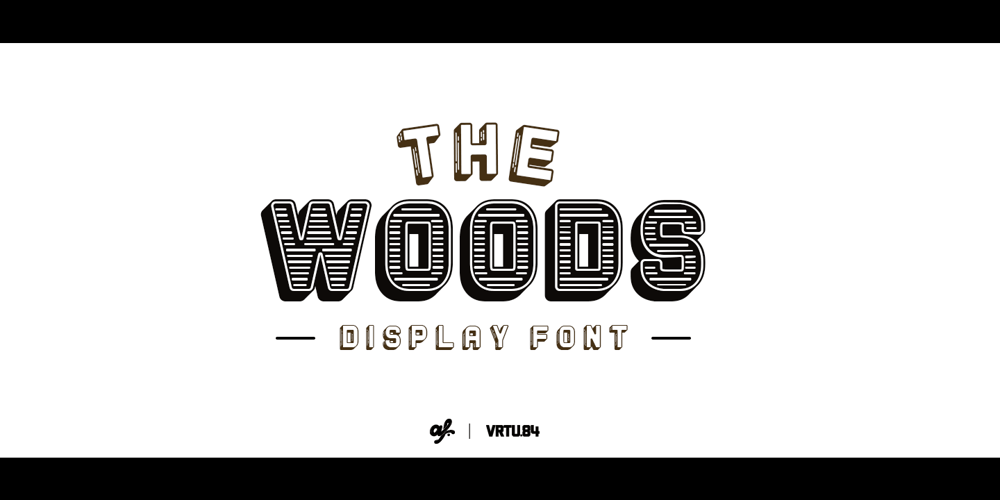
The Woods Font Family was designed by published by Andrew Footit. The Woods contains 4 styles and family package options. The Woods is a bold new display font family with 4 styles, each style has a great design feel to it and looks hand crafted. Use it big and make a bold statement. This display font is perfect for posters, and headings that need to be noticed.